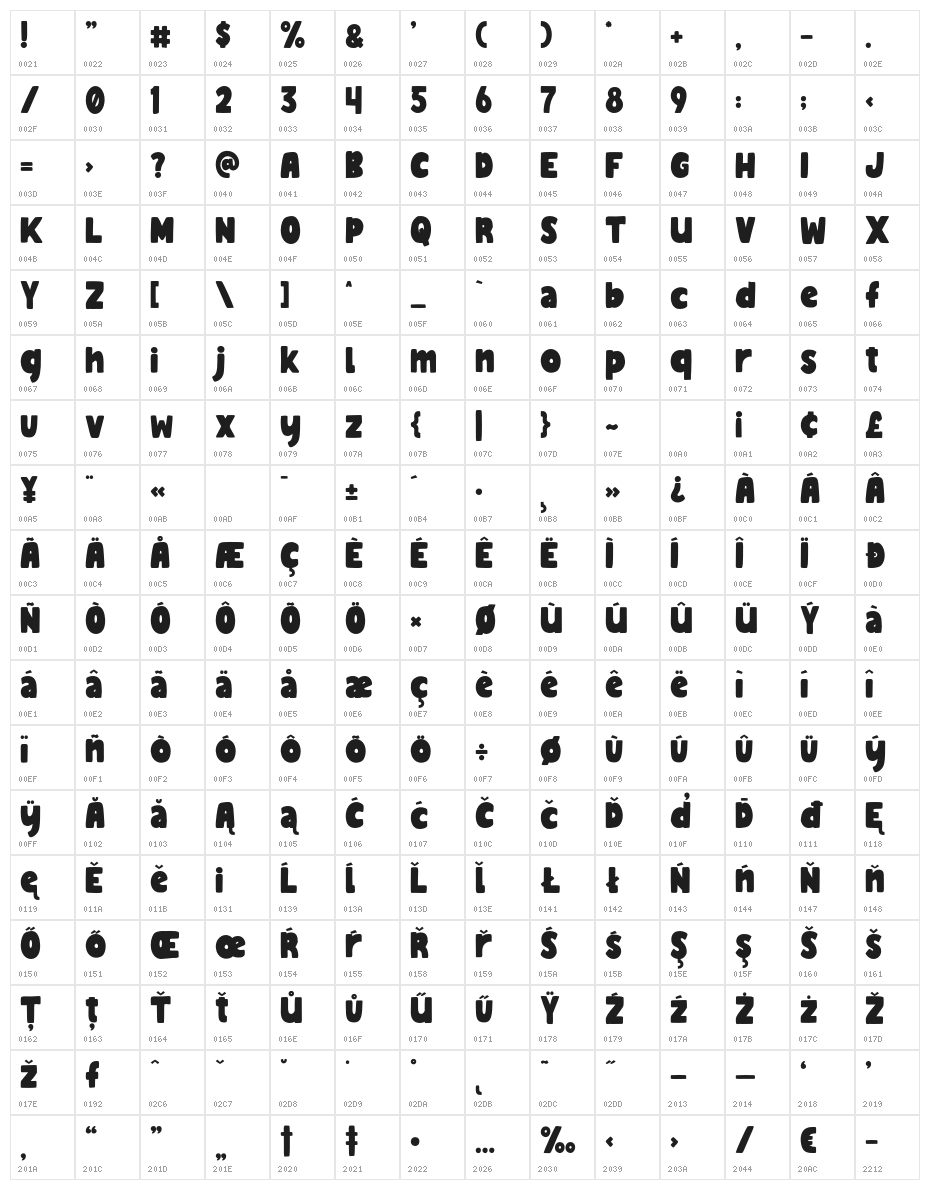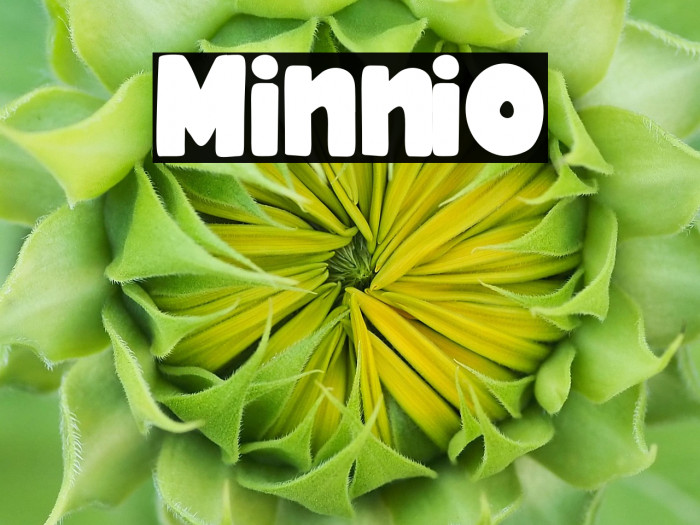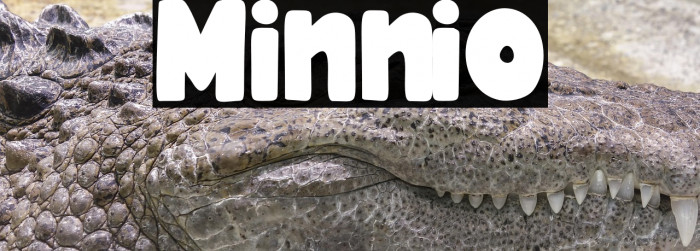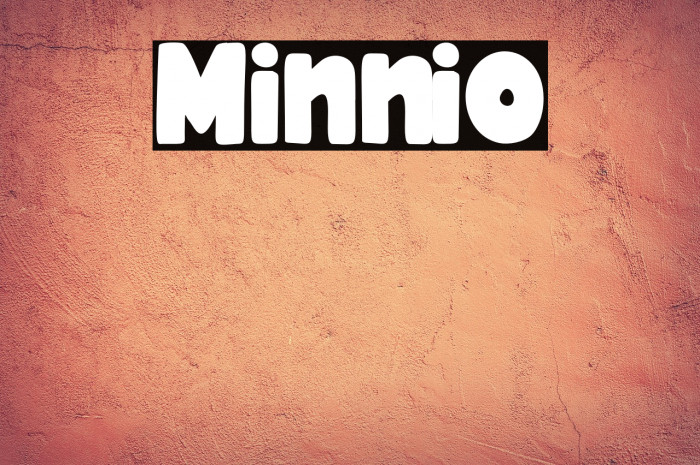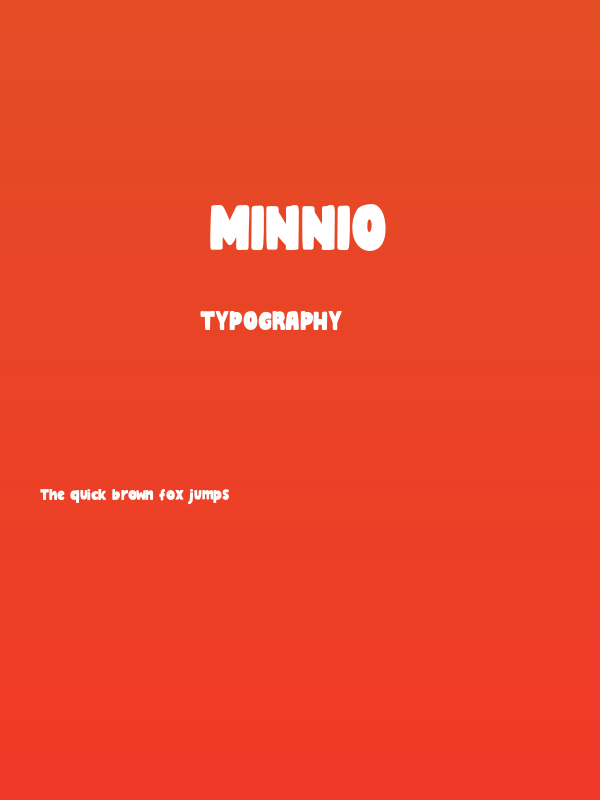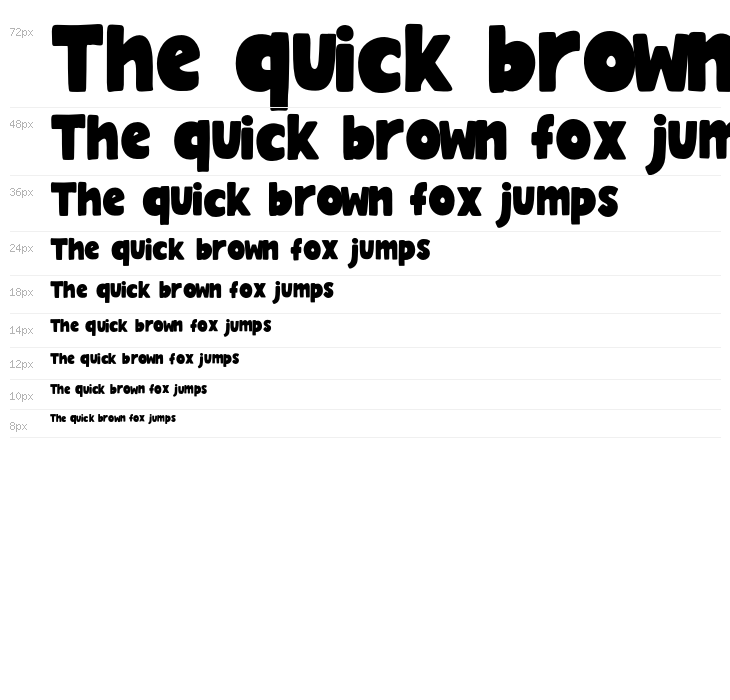
Minnio Font
Minnio Description
This playful and bold font features thick, rounded characters that exude a sense of fun and creativity. The letters are uniformly wide, giving it a chunky appearance that is both eye-catching and approachable. Its whimsical style is perfect for projects that require a touch of humor or a casual vibe. The font maintains consistent stroke thickness throughout, providing a cohesive look across all characters. Its unique design makes it ideal for use in children's books, playful branding, or any project that aims to convey a lighthearted and friendly tone.
| Proposed Projects | Ideal for children's books, playful branding, posters, and any design needing a whimsical touch. |